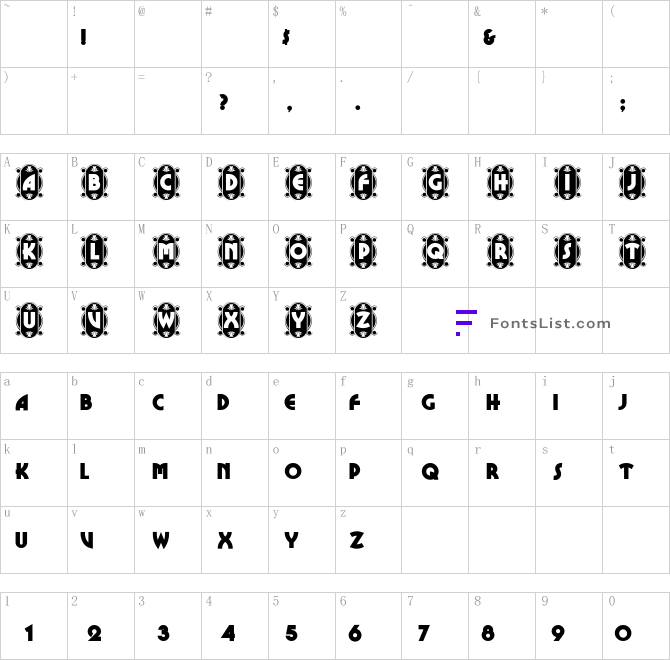
- Font Name:CameoAppearance
CameoAppearance.ttf is a very beautiful artistic font, CameoAppearance.ttf is widely used in the design and printing of various books and pictures,CameoAppearance.ttf has a strong visual impact,CameoAppearance.ttf is a commonly used font in newspapers, magazines and books, and is used in posters, e-commerce Poster design, store design, logo design, font design and other fields.CameoAppearance.